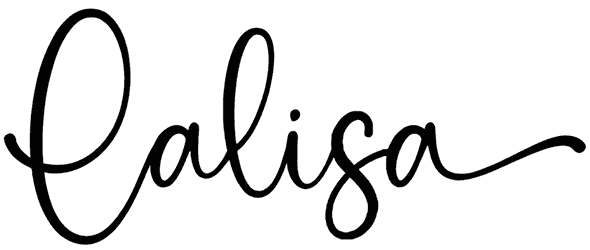
Lalisa Font
Beautiful and modern can be a suitable description of this option that you can choose for various designs. This handwritten font, which is known as Lalisa, has a curved and delicate pen lettering face that would be harmo…
Beautiful and modern can be a suitable description of this option that you can choose for various designs. This handwritten font, which is known as Lalisa, has a curved and delicate pen lettering face that would be harmonized with formal and informal layouts. With an almost full cover of characters, this tattoo font can be matched with various designs like posters, magazines, invitations, and whatnot.